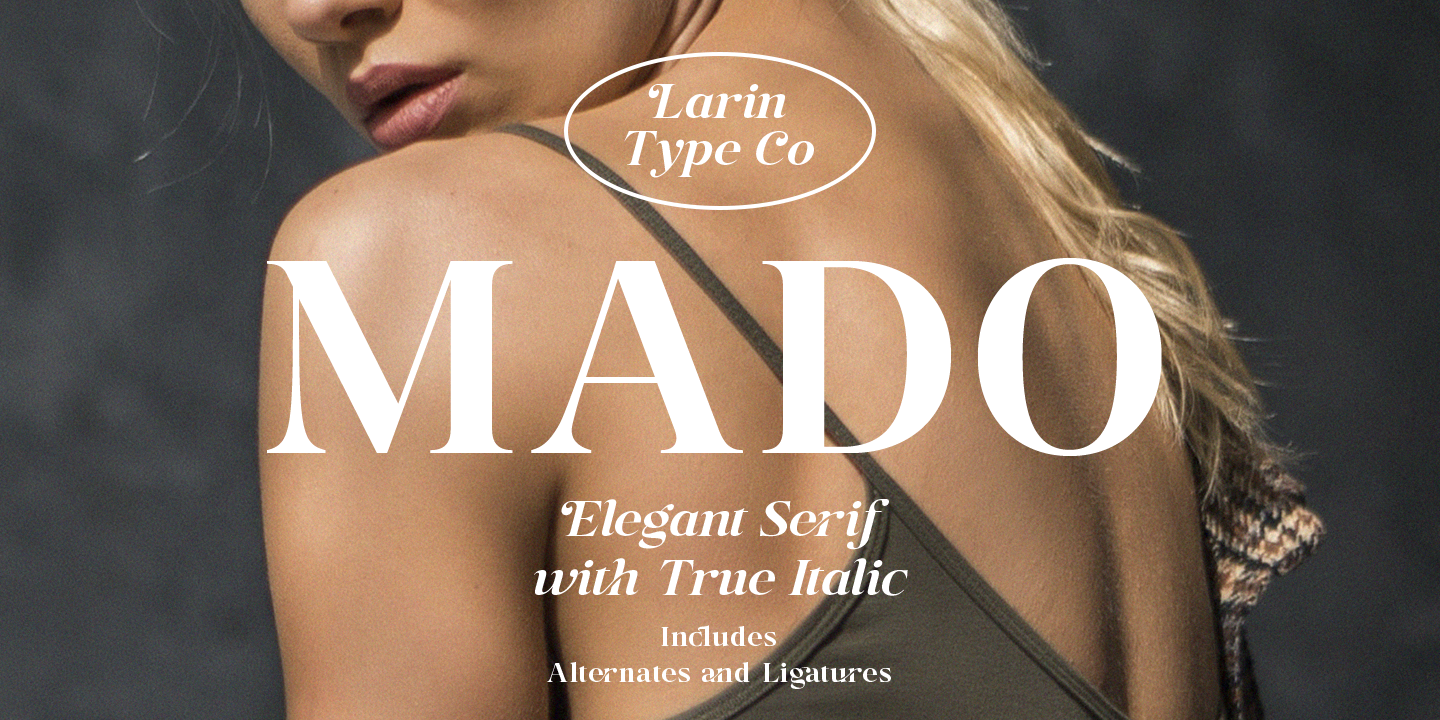
Mado Font is perfect for contemporary fashion branding, modern lifestyle magazines, chic boutique identities, stylish web interfaces, trendy product packaging, sophisticated advertising campaigns, elegant personal branding, and refined cultural communications. This stylish typeface excels in applications requiring modern elegance and fashionable sophistication that captures the essence of contemporary style and refined taste through sleek visual character and sophisticated appeal.
What makes Mado Font exciting is its effortless modern sophistication that perfectly captures the essence of contemporary fashion and lifestyle elegance through stylishly crafted letterforms. The font features sleek character construction with fashionable proportions and contemporary styling that instantly conveys themes of style, sophistication, and modern elegance perfect for brands targeting fashion-conscious audiences and lifestyle markets seeking authentic contemporary appeal.
The Mado Font family includes stylish weights and contemporary variations with fashion-inspired styling elements, offering designers comprehensive tools for creating sophisticated modern compositions. The family provides consistent fashionable aesthetic with varying elegance levels for versatile lifestyle communications and contemporary branding projects requiring genuine style character and modern fashion appeal.
The stylishly crafted letterforms of Mado Font ensure excellent readability while maximizing contemporary charm and fashionable sophistication, making it ideal for fashion marketing, lifestyle publications, and modern brand communications. This elegant typeface combines contemporary fashion heritage with modern technical standards for outstanding performance in design environments requiring authentic style character and sophisticated modern presence.